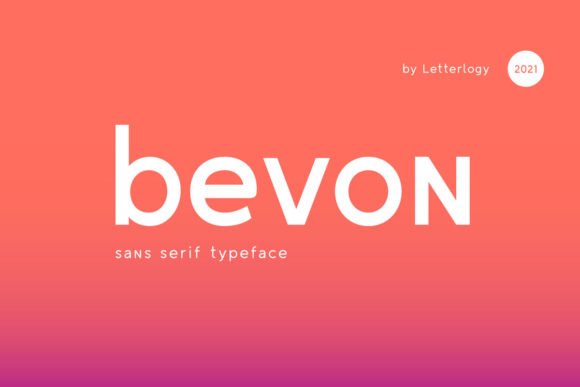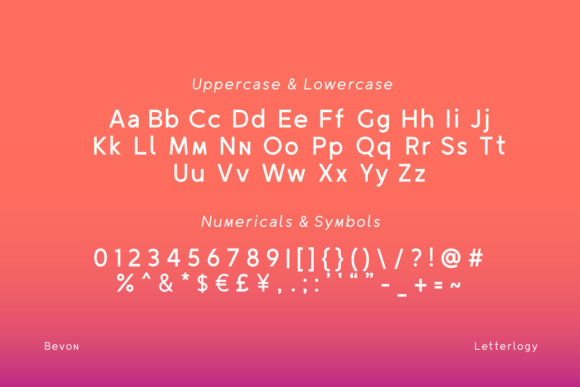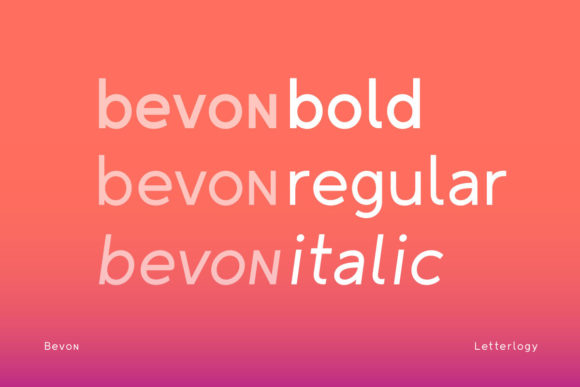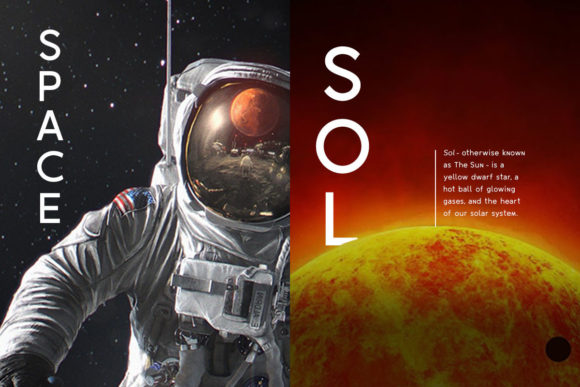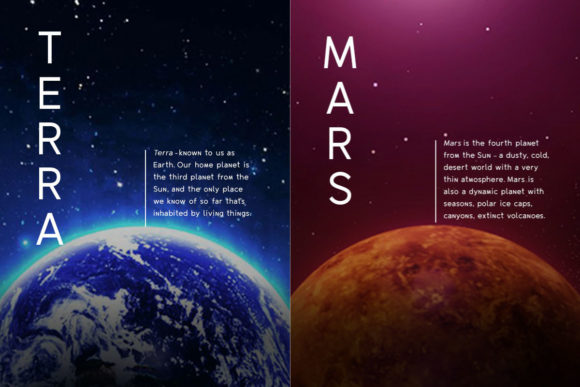
The Perfect Font to Elevate Your Creative Projects
Do you remember that moment when a simple design element completely changed the direction of your project? Maybe it was a color palette, a texture, or a font that just clicked. For me, it was a sleek sans serif font that added a touch of sophistication to a client’s branding. That font was Bevon, and it completely transformed the look and feel of the project.
Bevon Font is a minimal and neat sans serif font designed to elevate your creative projects. Its clean lines and modern aesthetic make it an ideal choice for a wide range of designs, from logos to brochures. Whether you’re a seasoned designer or just starting out, Bevon Font is a valuable addition to your toolkit. Its versatility and timeless design make it a great choice for designers looking to create projects that stand out from the crowd.
Bevon Font Key Features
- Font Family: Bevon Font is a sans-serif font family designed for digital use.
- Size: The font family includes a wide range of weights, from Thin (100) to Black (900), with 8 styles in total.
- Resolution: Designed for use at high resolutions, making it suitable for digital displays and printing.
- Unique Characteristics: Bevon Font features a modern and clean design with a unique, geometric feel, making it ideal for use in digital products, apps, and websites.
- Character Count: The font family includes a comprehensive character set, including Latin, Cyrillic, and Greek alphabets, as well as punctuation and symbols.
Bevon Font Review
Overall, I’m fairly impressed with the Bevon Font. It has a clean and modern aesthetic that can work well in a variety of design contexts. ✨
- Bevon Font is highly legible, making it perfect for body text and long passages of text.
- The font’s x-height is well-balanced, resulting in a harmonious and visually appealing look.
- The font is available in a range of weights, allowing designers to create a visually cohesive and dynamic typographic system.
However, there are a few areas where Bevon Font falls short. ⚠️
- The font’s italic styles can sometimes look a bit awkward, particularly at smaller font sizes.
- The font may not be suitable for titles or headlines, as it lacks a strong, dramatic feel.
- The font’s design may not be particularly innovative or unique, which could make it blend in with the crowd.
Overall, I think Bevon Font is a solid choice for designers who need a clean and modern sans-serif font. While it may not be the most exciting or innovative font, it gets the job done and can be a reliable workhorse in a designer’s toolkit.
Bevon Font is ideal for use in modern, creative designs. Tips for getting the most out of it include:
- Using it in combination with bold, bright colors to create a striking visual effect.
- Applying it to headings and titles to add a touch of elegance.
- Experimenting with different font sizes and styles to create a unique look.